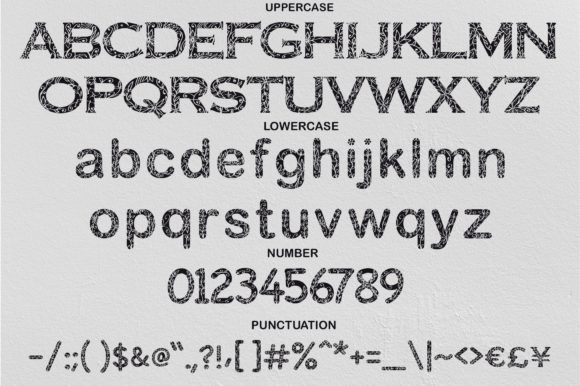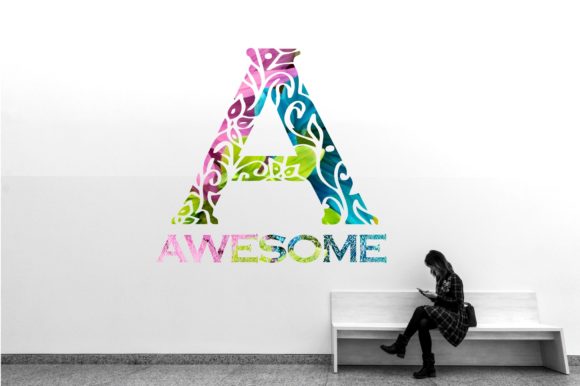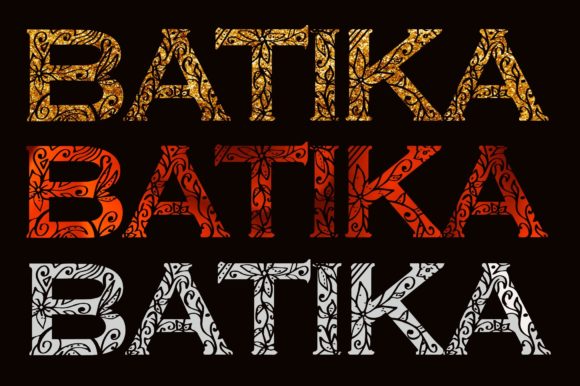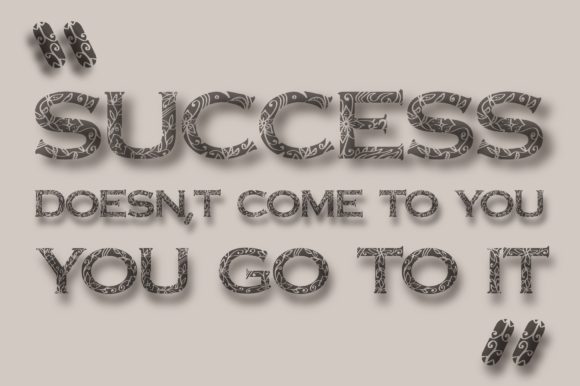
Batika Font: Elevate Your Designs with Elegance and Sophistication
In the world of typography, fonts play a crucial role in conveying the tone and personality of a design. For designers and crafters looking to add a touch of class and sophistication to their work, the Batika Font is an excellent choice. This beautiful and detailed decorative font is perfect for a wide range of applications, from logos and branding to invitations, stationery, wedding designs, and social media posts.
The Characteristics of Batika Font
Batika Font boasts a classy, elegant, and modern look that sets it apart from other fonts. Its intricate details and ornate features make it a standout choice for designers who want to add a touch of luxury to their work. The font’s versatility allows it to be used in various contexts, from formal events to everyday designs.
What Makes Batika Font Special?
- Unique and Detailed Design: Batika Font features a distinctive and intricate design that will make your work stand out from the crowd.
- Elegant and Modern Look: The font’s elegant and modern aesthetic makes it perfect for designs that require a touch of sophistication.
- Versatile: Batika Font can be used for a wide range of applications, from logos and branding to invitations, stationery, and social media posts.
- High-Quality: The font is designed with high-quality and precision, ensuring that it looks great in any size or resolution.
Use Cases for Batika Font
Batika Font is an excellent choice for various design projects, including:
- Logos and Branding: Create a lasting impression with a unique and memorable logo that showcases your brand’s personality.
- Invitations and Stationery: Add a touch of elegance to your invitations, business cards, and other stationery.
- Wedding Designs: Make your wedding designs, such as invitations, programs, and place cards, truly special with Batika Font.
- Social Media Posts: Elevate your social media posts with a font that exudes sophistication and style.
Tips for Using Batika Font
To get the most out of Batika Font, here are some tips to keep in mind:
- Use it Sparingly: Batika Font is a decorative font, so use it sparingly to avoid overwhelming your design.
- Pair it with a Simple Font: Pair Batika Font with a simple font to create contrast and make your design more readable.
- Experiment with Colors: Batika Font looks great in various colors, so don’t be afraid to experiment and find the perfect hue for your design.
Batika Font is a beautiful and detailed decorative font that can elevate your designs with its elegant and modern look. Its versatility and high-quality design make it perfect for a wide range of applications, from logos and branding to invitations, stationery, wedding designs, and social media posts. With its unique and intricate design, Batika Font is sure to make your work stand out from the crowd.